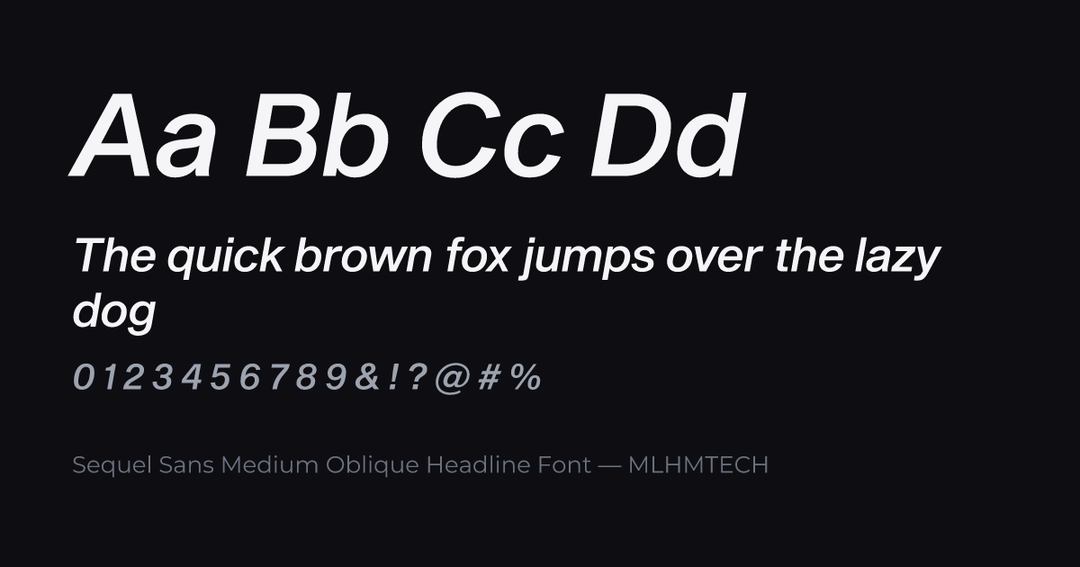
Sequel Sans Medium Oblique Headline Font
Sequel Sans Medium Oblique is a modern, clean sans-serif font with an oblique (slanted) style. Ideal for headlines, logos, and branding projects.
Sequel Sans Medium Oblique Head is a versatile sans-serif typeface that combines geometric clarity with a subtle oblique slant. Its medium weight strikes a balance between boldness and elegance, making it suitable for a wide range of design applications. This font is part of the Sequel Sans family, known for its contemporary look and excellent legibility. The oblique style adds a dynamic, forward-moving feel to your text, perfect for editorial layouts, advertising, and digital media. Whether you're designing a logo, crafting a headline, or building a brand identity, Sequel Sans Medium Oblique delivers a professional and polished appearance. Its clean lines and modern proportions ensure it stands out while remaining highly readable.